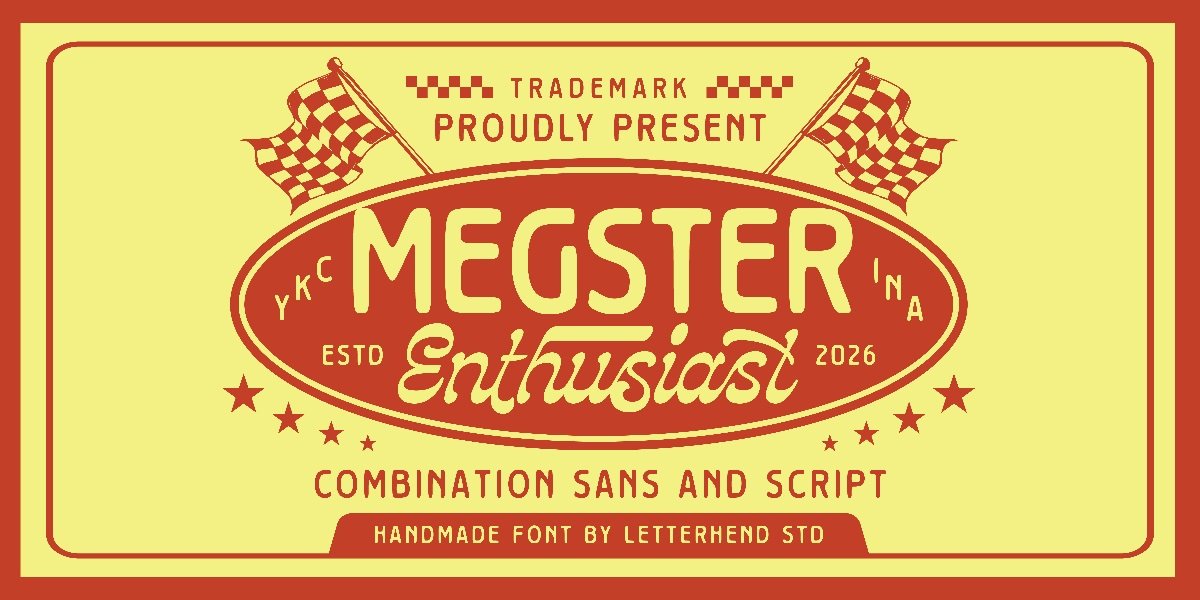
Megster Retro Font Duo is here! Megster feels like a full-throttle ride into vintage racing culture—bold, fun, and packed with character. The combination of a rounded, confident sans and a smooth, energetic script creates a perfect harmony between structure and motion, giving your design that classic badge-style charm.